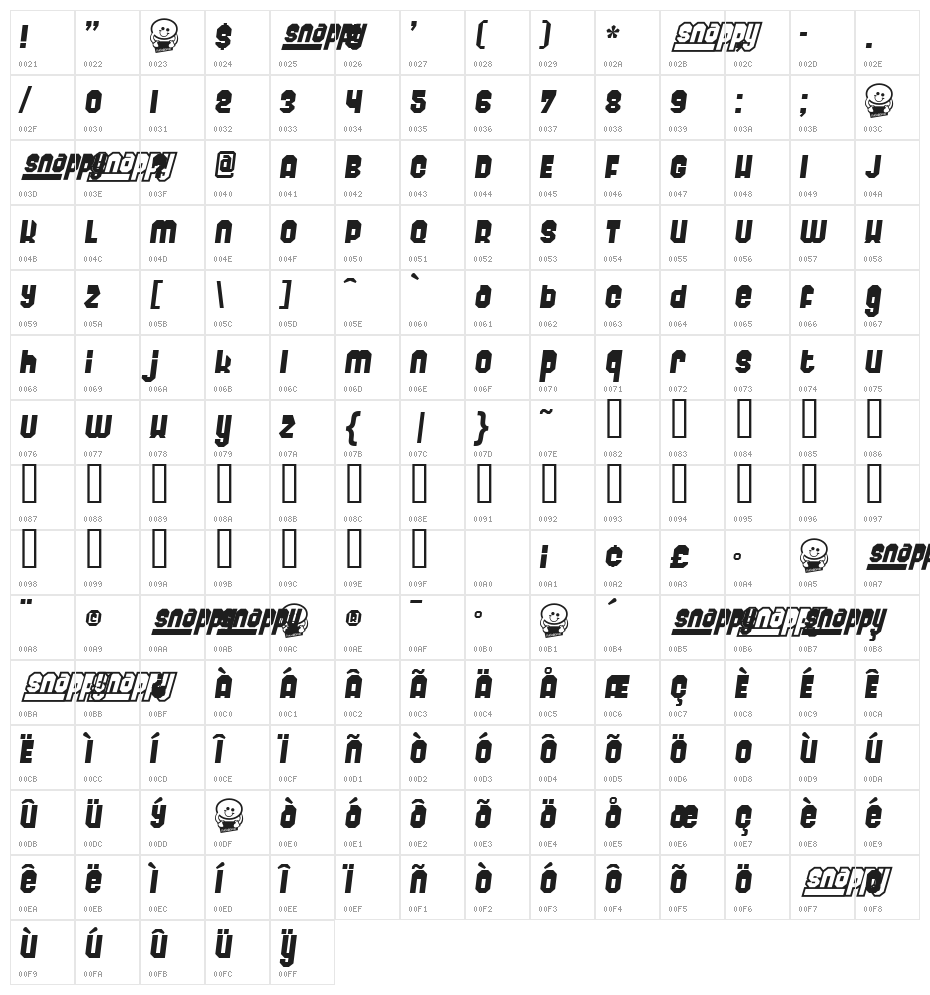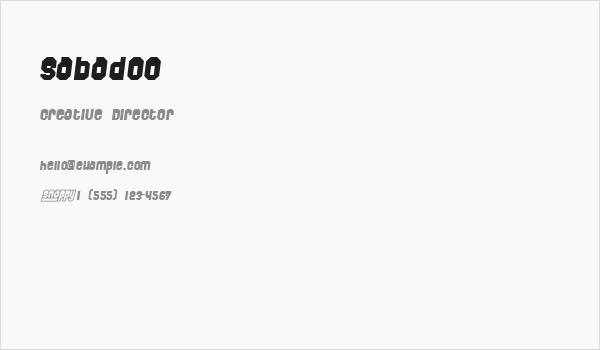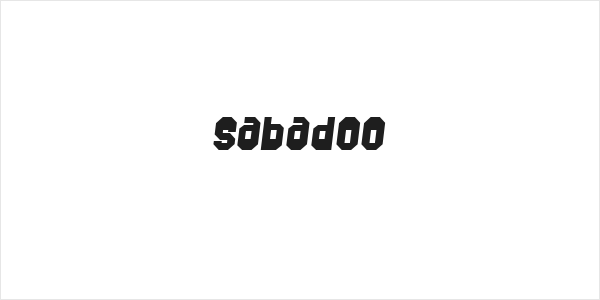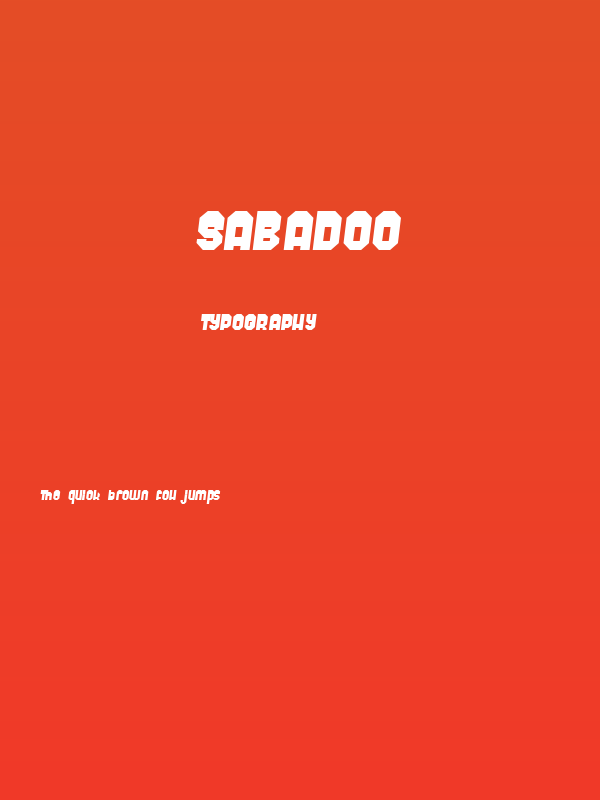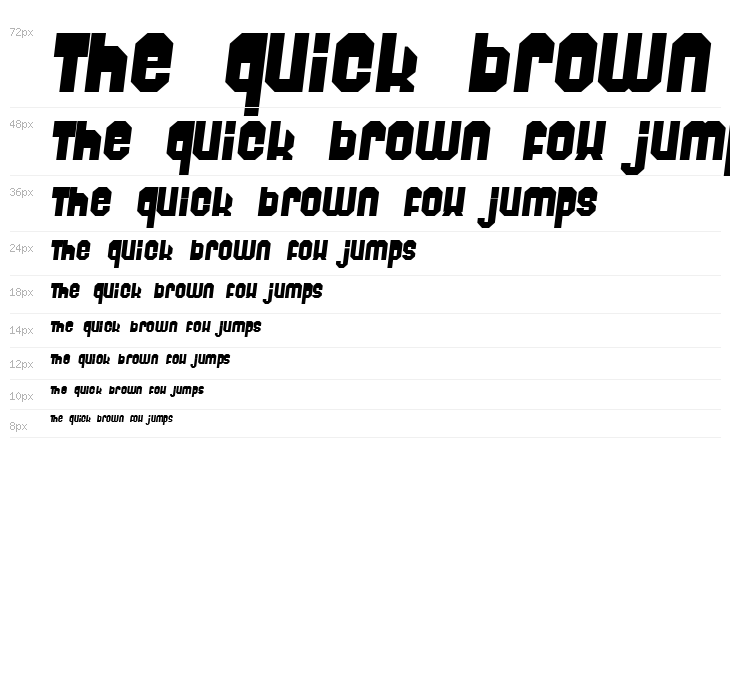
Sabadoo Font
Sabadoo Description
This font features a bold and angular design, characterized by its sharp edges and geometric shapes. The uppercase and lowercase letters maintain a consistent style, with a strong emphasis on diagonal lines and a slightly condensed form. The numerals and special characters follow the same design principles, ensuring a cohesive look across all glyphs. The font's boldness and unique style make it stand out, while its angular nature gives it a modern and edgy feel.
| Proposed Projects | Ideal for branding, posters, and headlines that require a strong visual impact. |